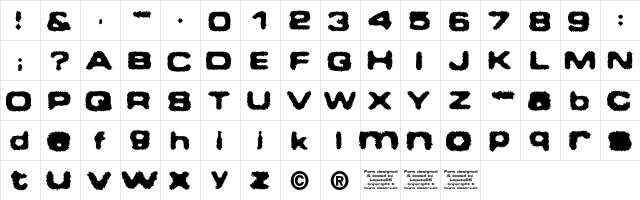
Faxer BoldExtended
Design Context for Faxer Typeface
Faxer is a composed and adaptable typeface that performs quietly and consistently across a wide range of design contexts. The heavy weight commands attention and anchors typographic hierarchies.